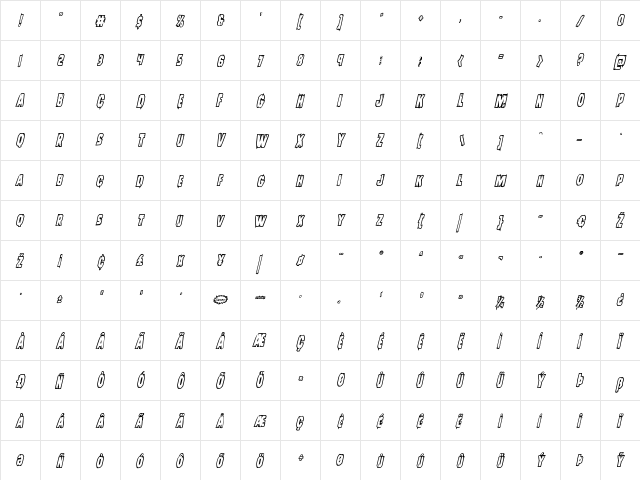
Design Context for Leatherface Bold Outline Italic Typeface
Leatherface Bold Outline Italic brings ornamental detail and strong personality to headlines and identities, where visual impact matters more than quiet functionality. Its italic angle brings a sense of urgency and motion to the letterforms. Its bold stroke weight gives it real presence on the page.
Font Pairing: Pair with a clean neutral sans-serif for body copy to let Leatherface Bold Outline Italic's character lead without overwhelming the composition.
Pro Tip: Treat Leatherface Bold Outline Italic as the centrepiece of your typographic hierarchy. One strong heading set in a decorative face can carry an entire layout.